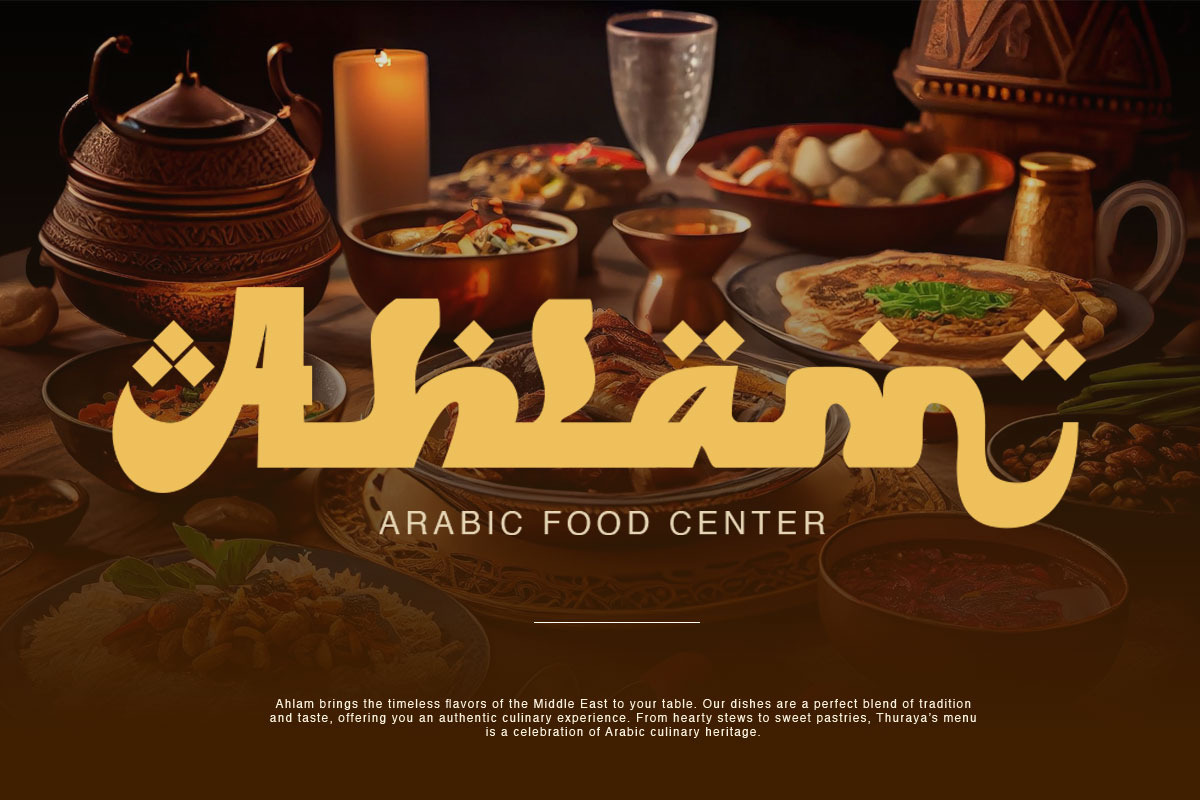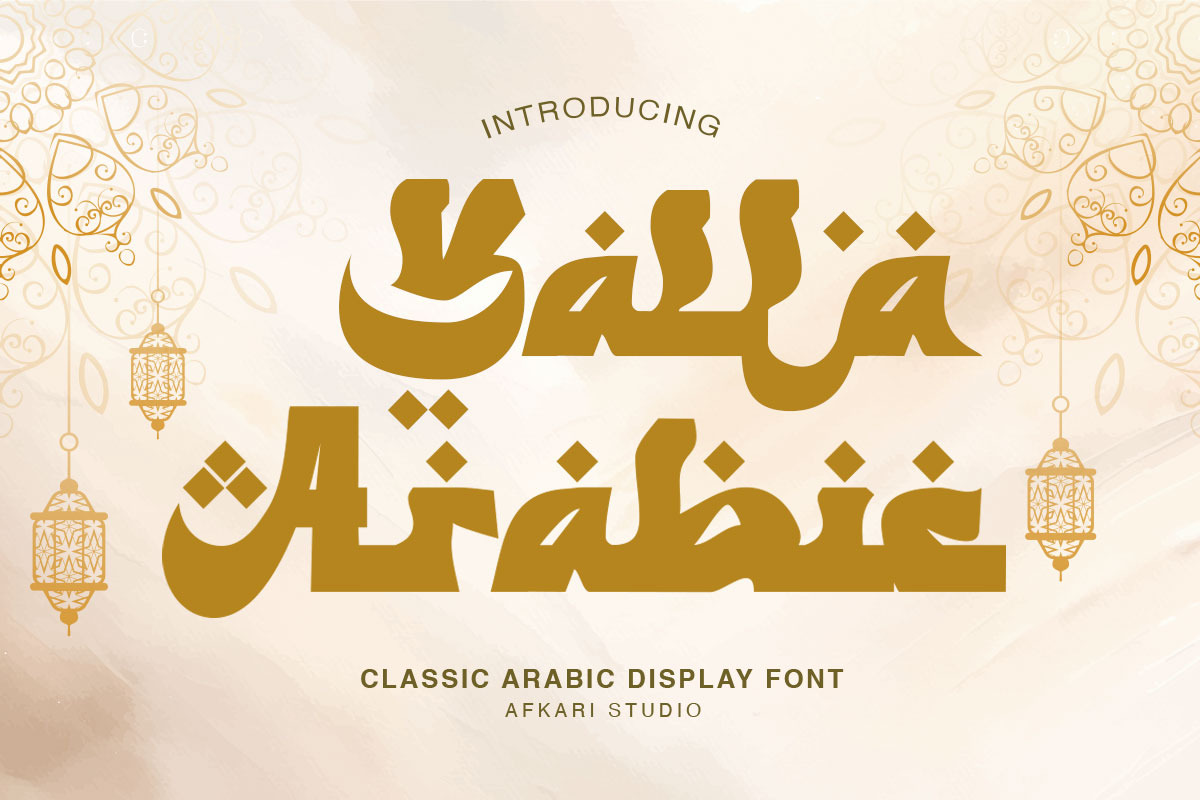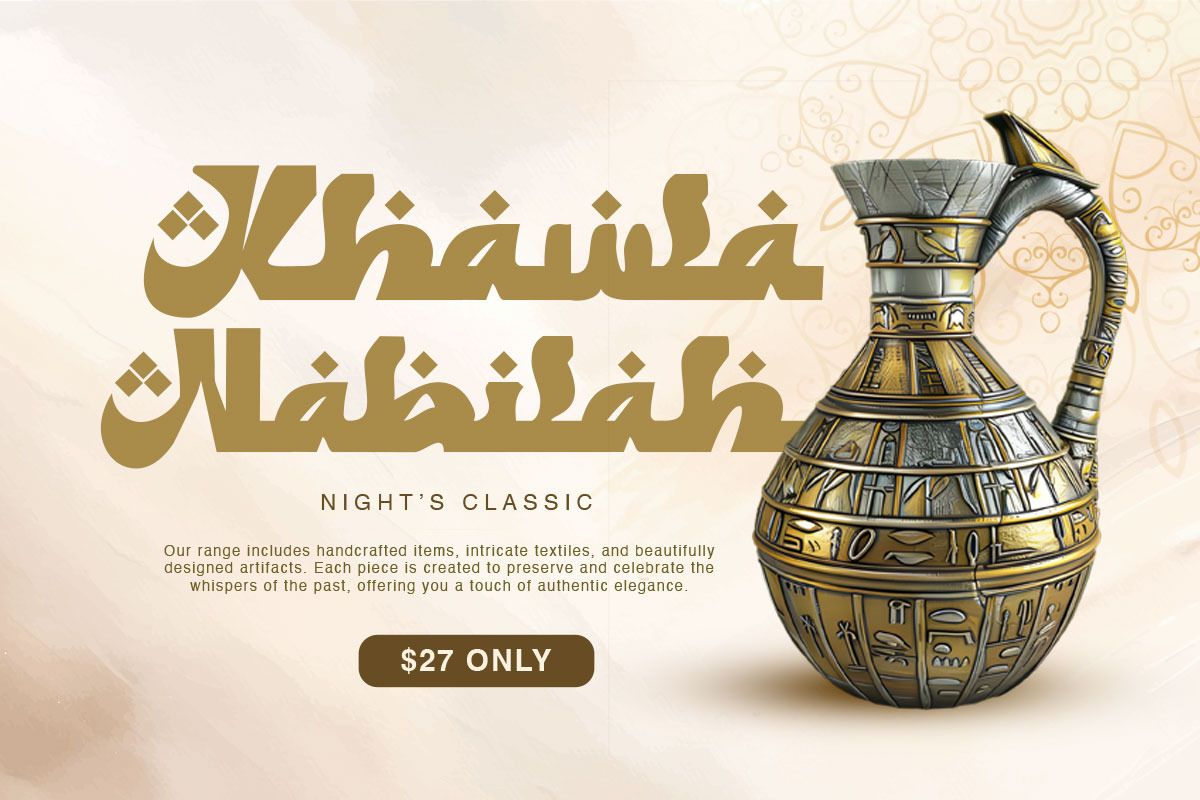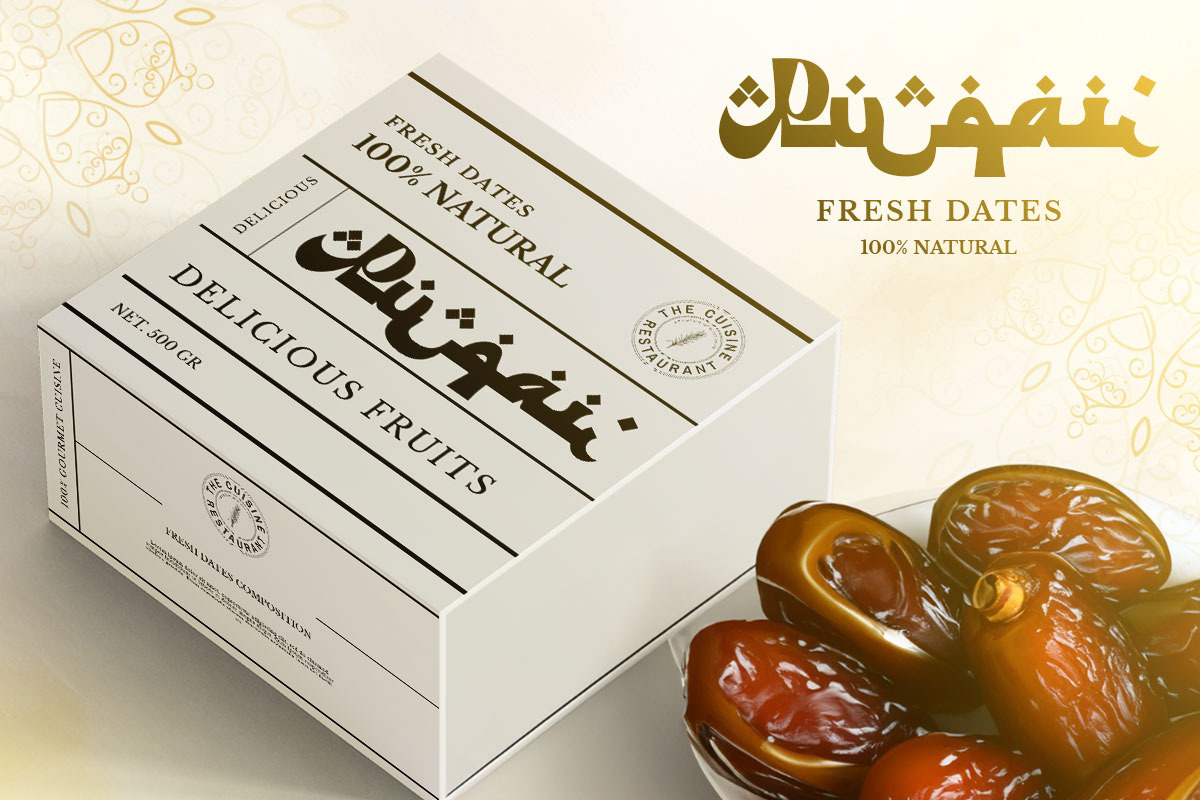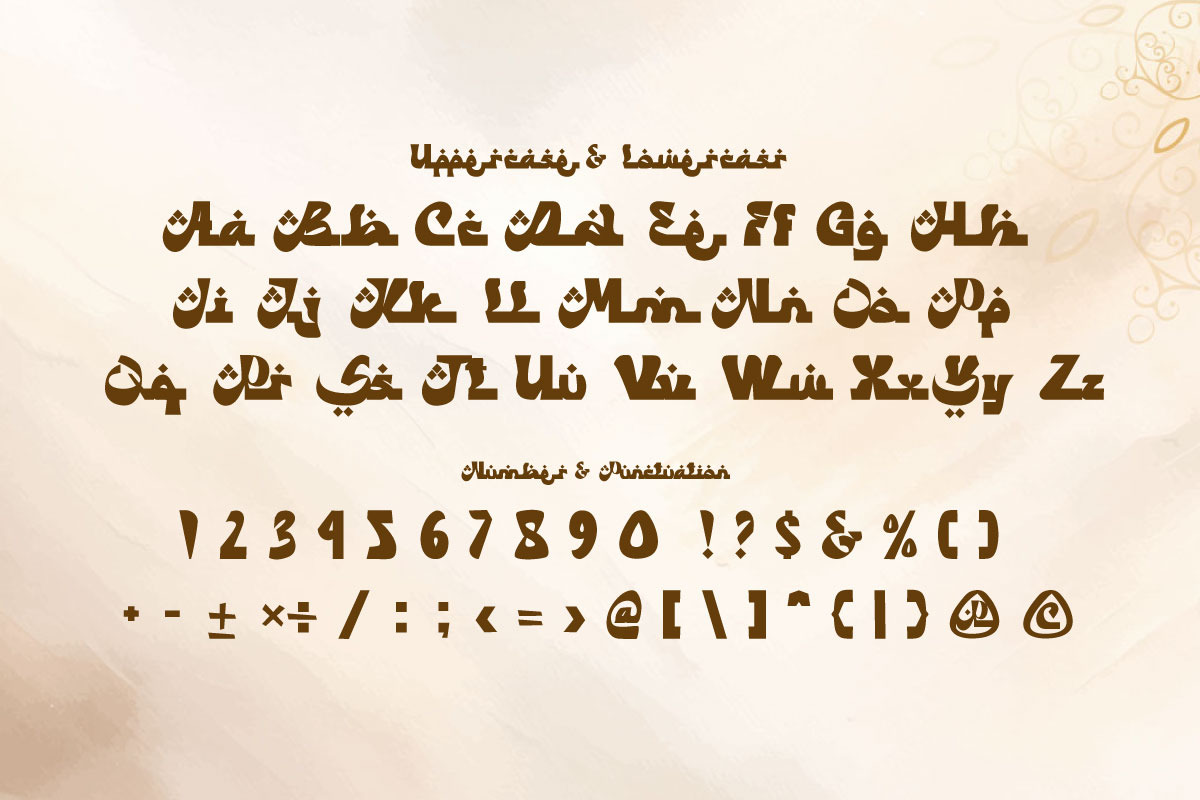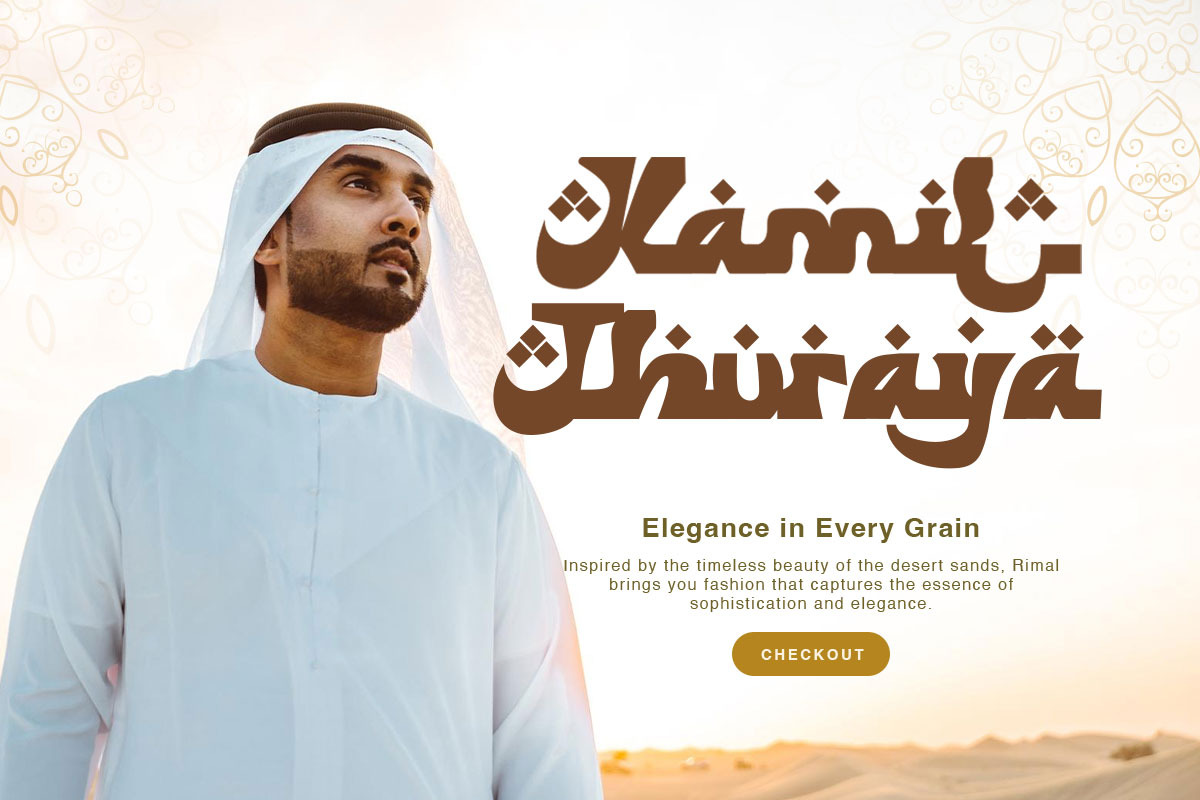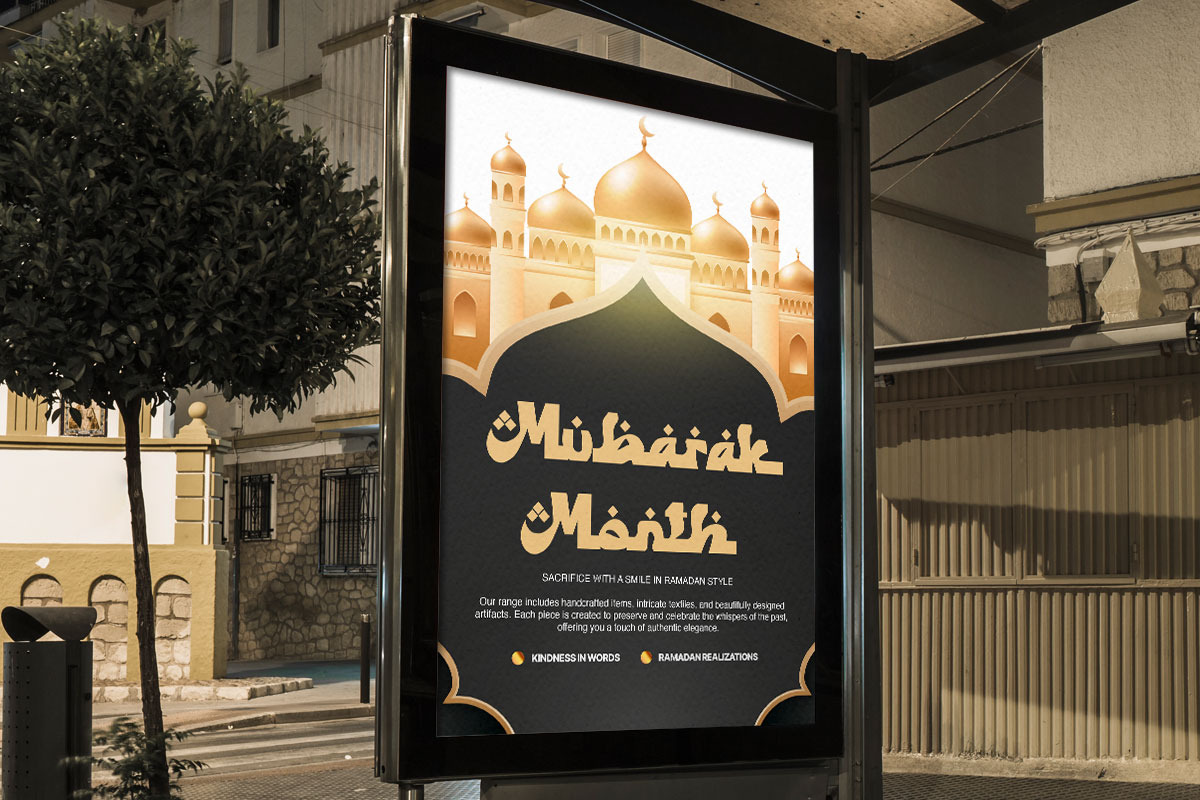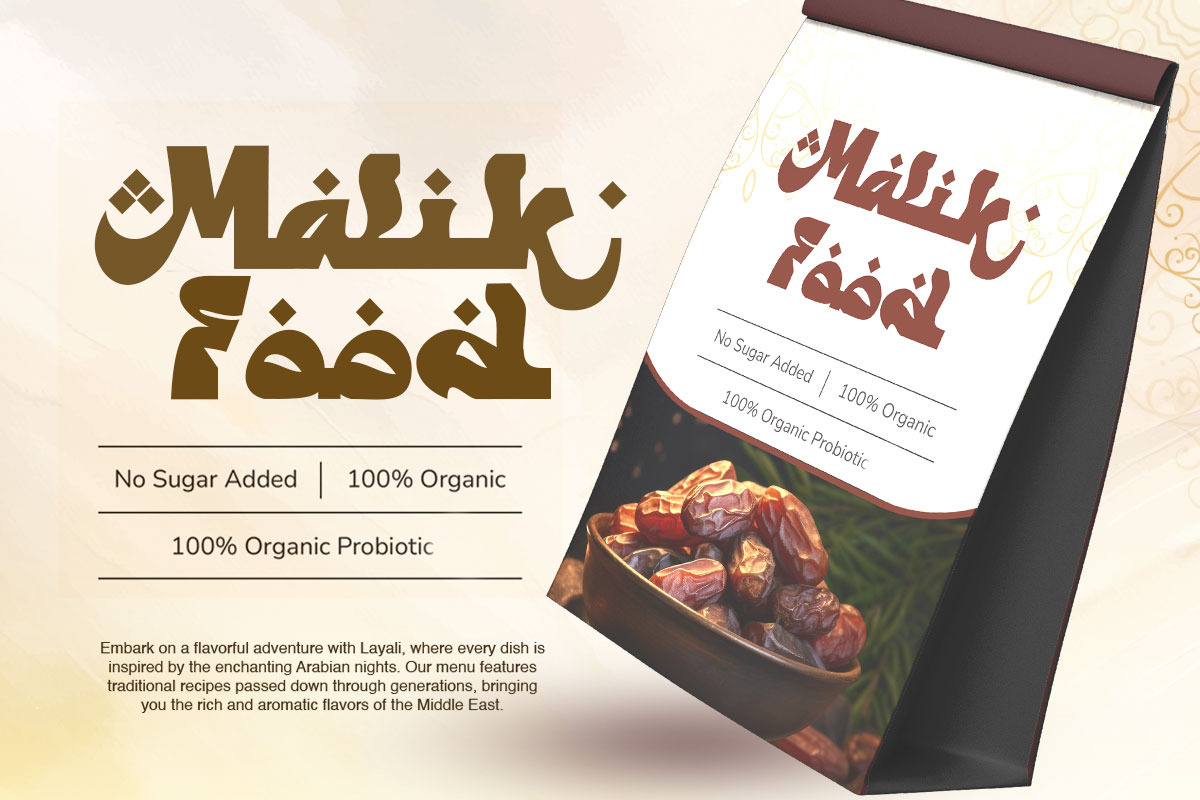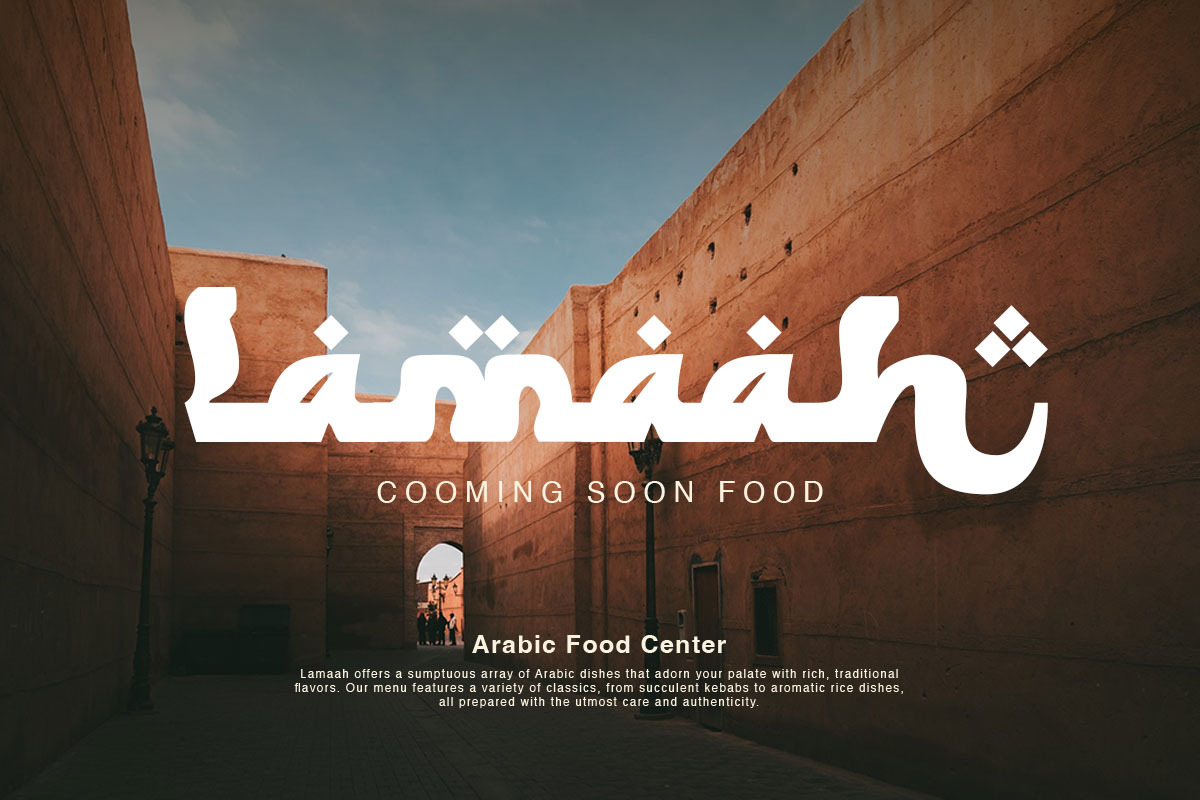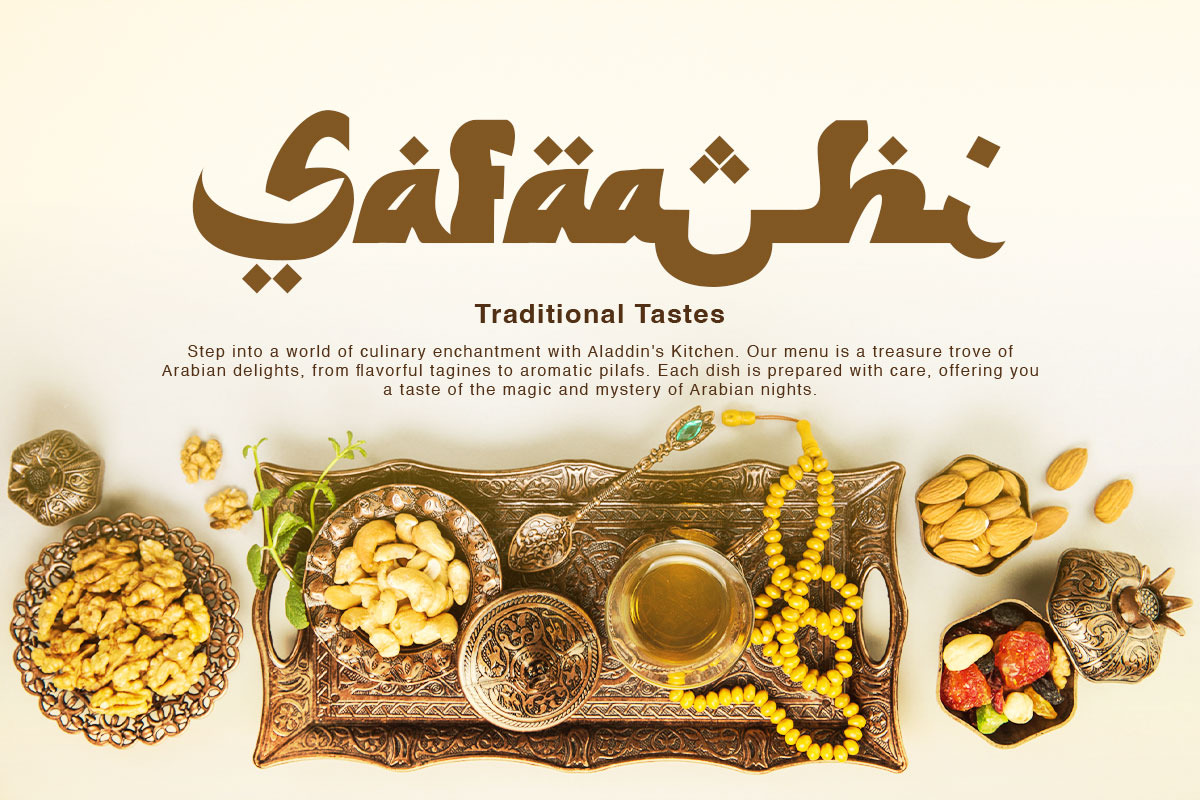
Yalla Arabic - Classic Arabic Font
Yalla Arabic is a sophisticated typeface that blends the elegance of traditional Arabic calligraphy with modern design sensibilities. Perfect for cultural and historical projects, this display font maintains high legibility, making it ideal for headlines, titles, and signage. Inspired by classic Arabic scripts, Yalla Arabic features beautifully designed ligatures and a comprehensive character set that includes a full range of Arabic glyphs, punctuation, and numerals, ensuring seamless integration with modern text requirements.
Offering different weights and styles, Yalla Arabic allows designers to create a cohesive and harmonious visual language across various mediums. Its versatility makes it suitable for branding, advertising, posters, and book covers, providing a distinct and elegant touch to any project. By balancing traditional aesthetics with contemporary functionality, Yalla Arabic is the perfect choice for designers looking to infuse their work with timeless beauty and cultural authenticity.
- Uppercase, lowercase, numbers, and punctuation
- Special alternates and ligatures for added visual richness
- Multilingual support, accommodating characters like ä, ö, ü, Ä, Ö, Ü, ß, ¿, and ¡